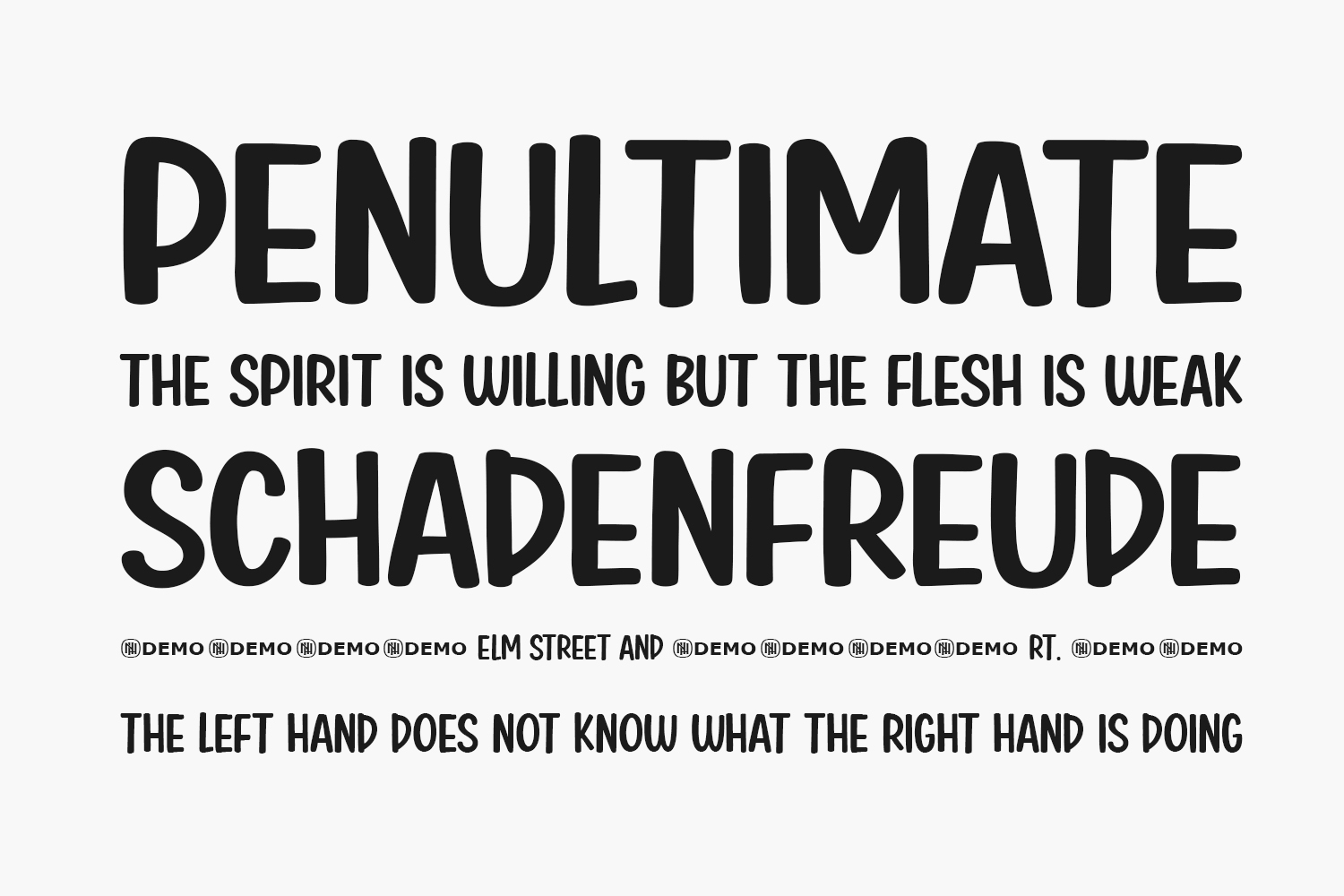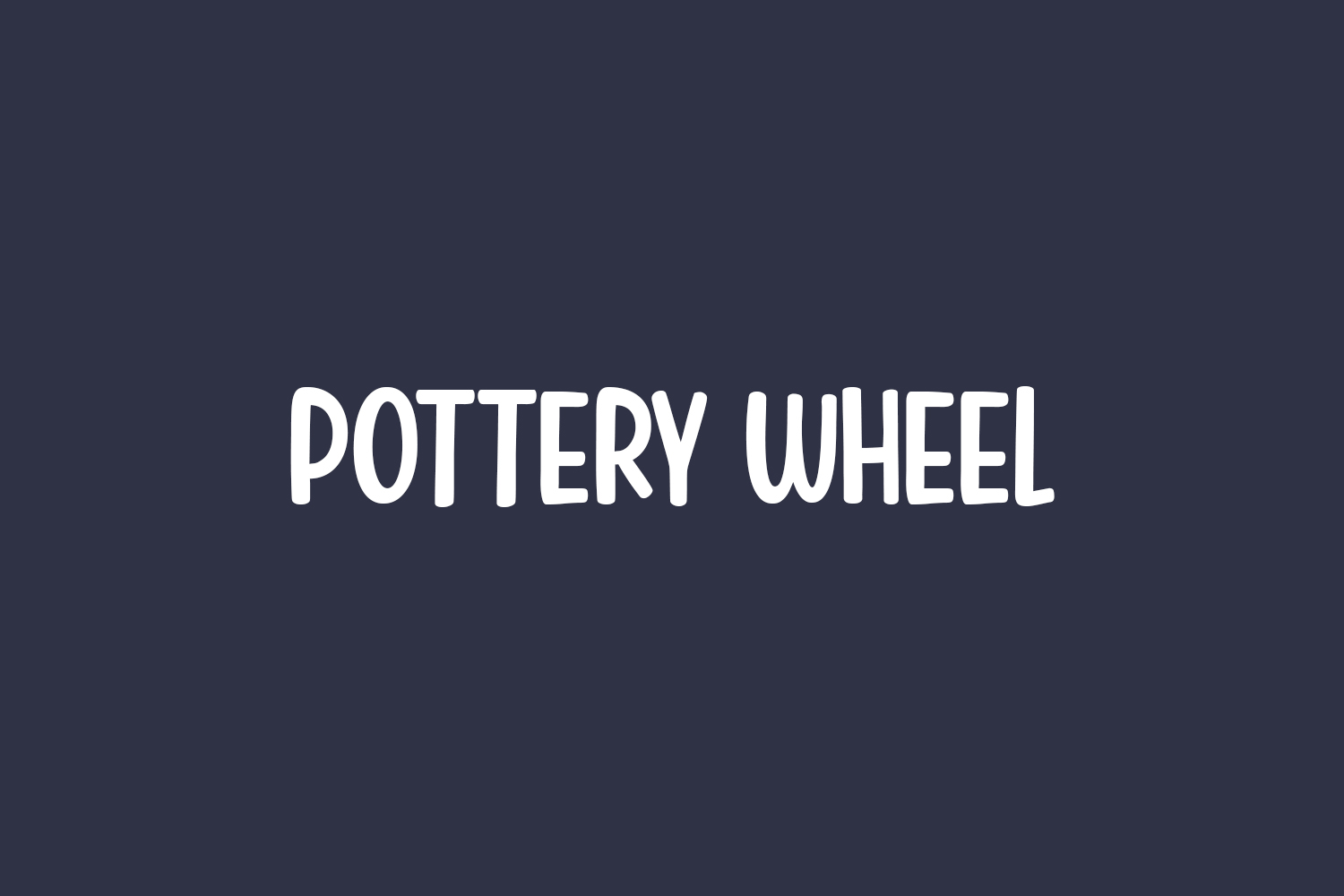
Pottery Wheel Free Font is an incredibly unique display font. Masterfully designed to become a true favorite, this font has the potential to bring each of your creative ideas to the highest level. Pottery Wheel Free Font was designed by Niskala Huruf is a demo and free for personal use only. Please purchase the full version for commercial use.